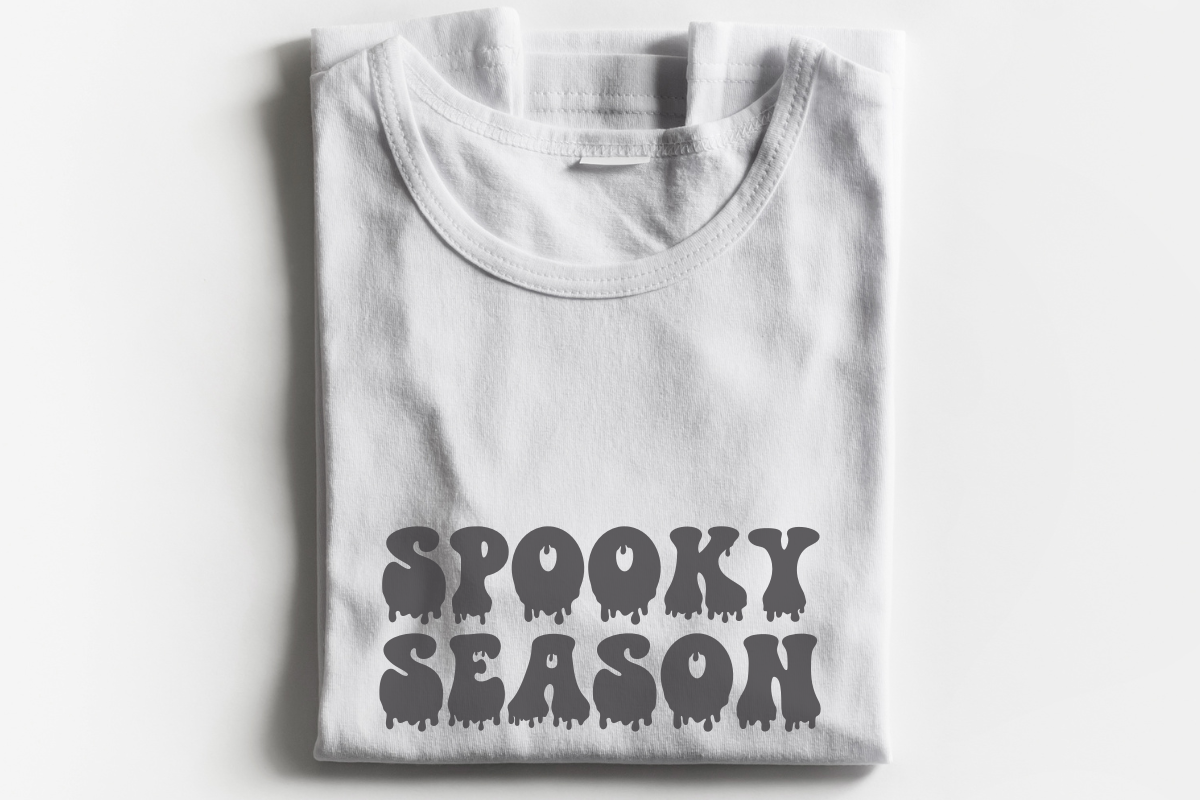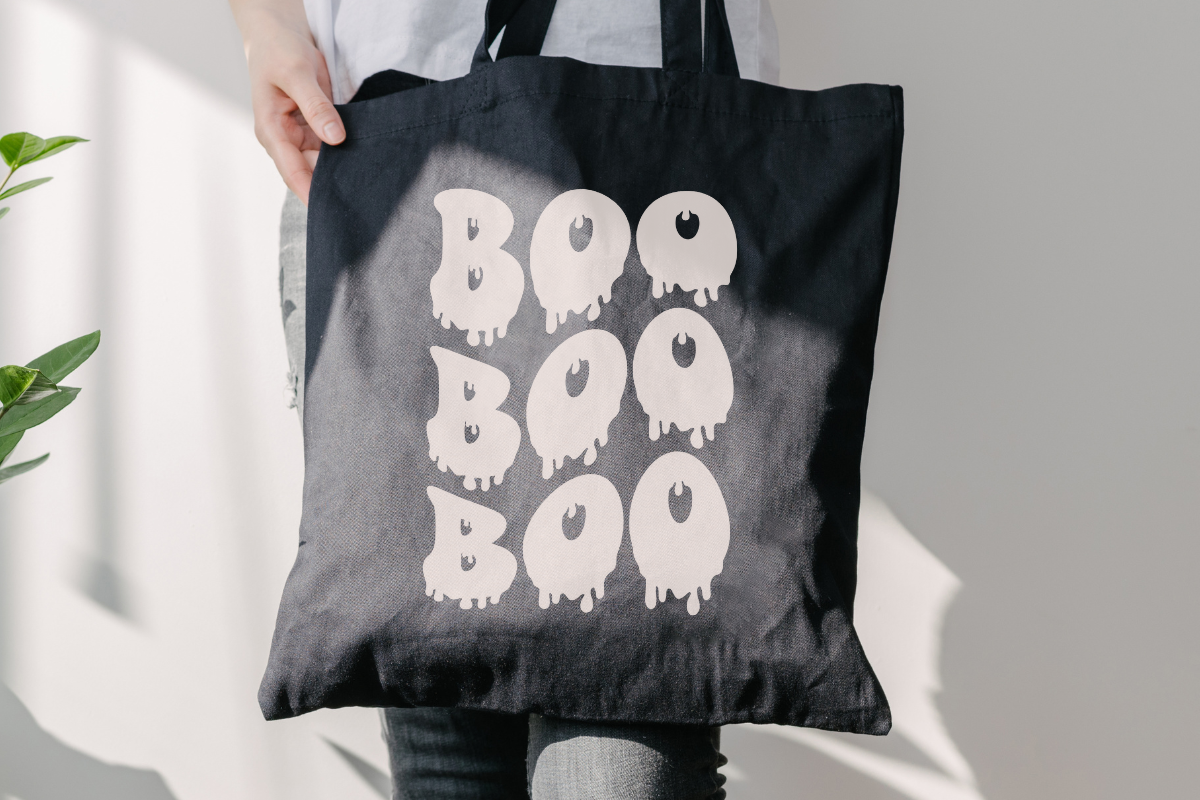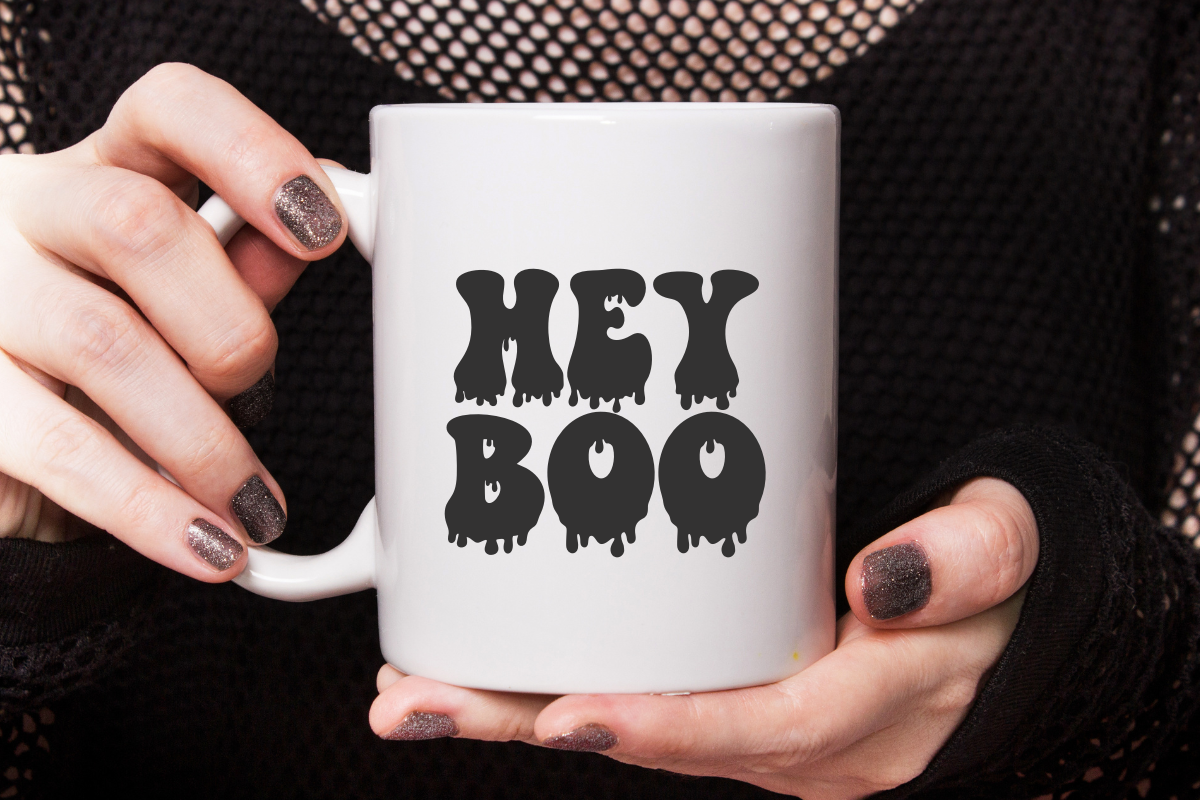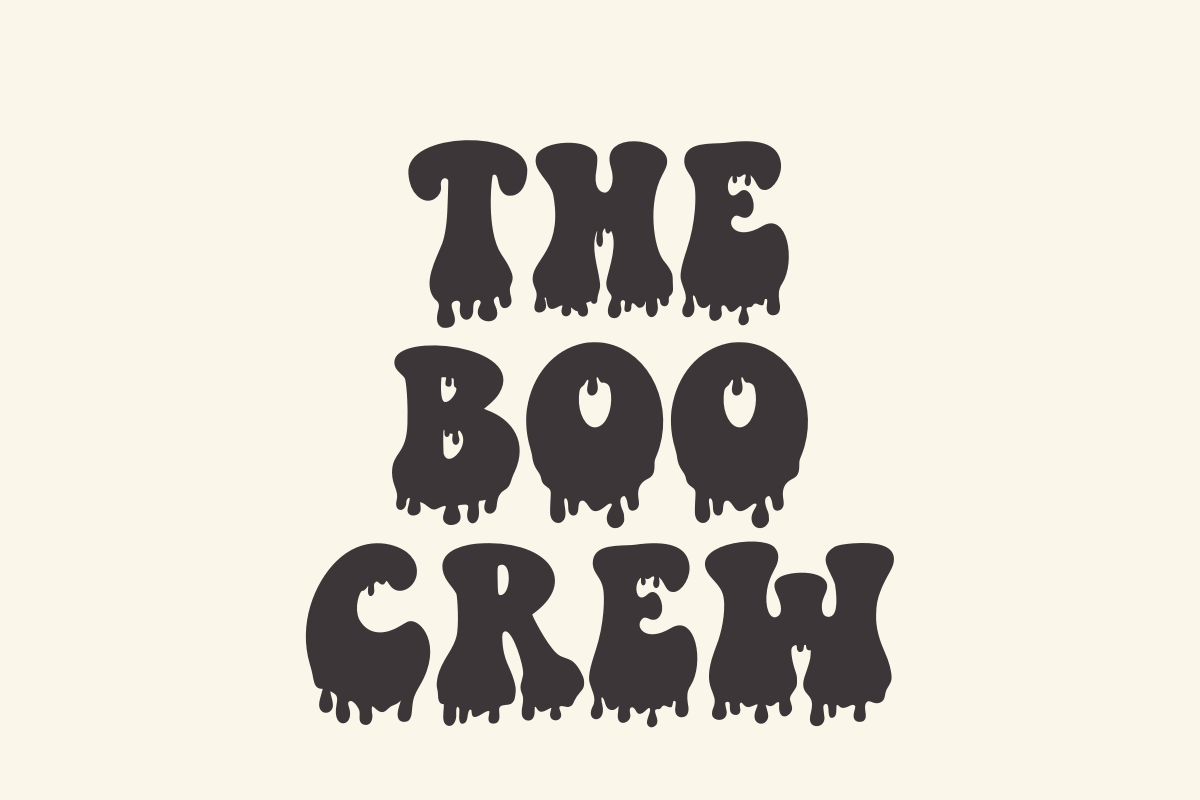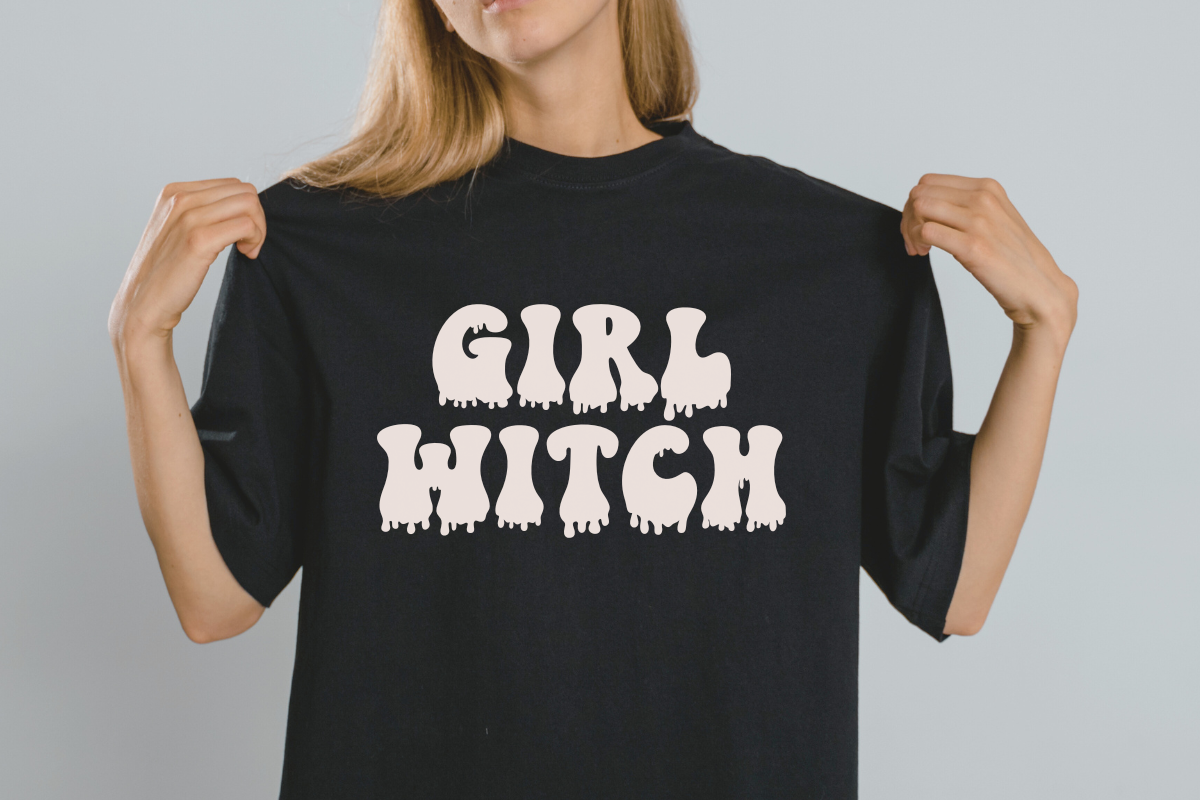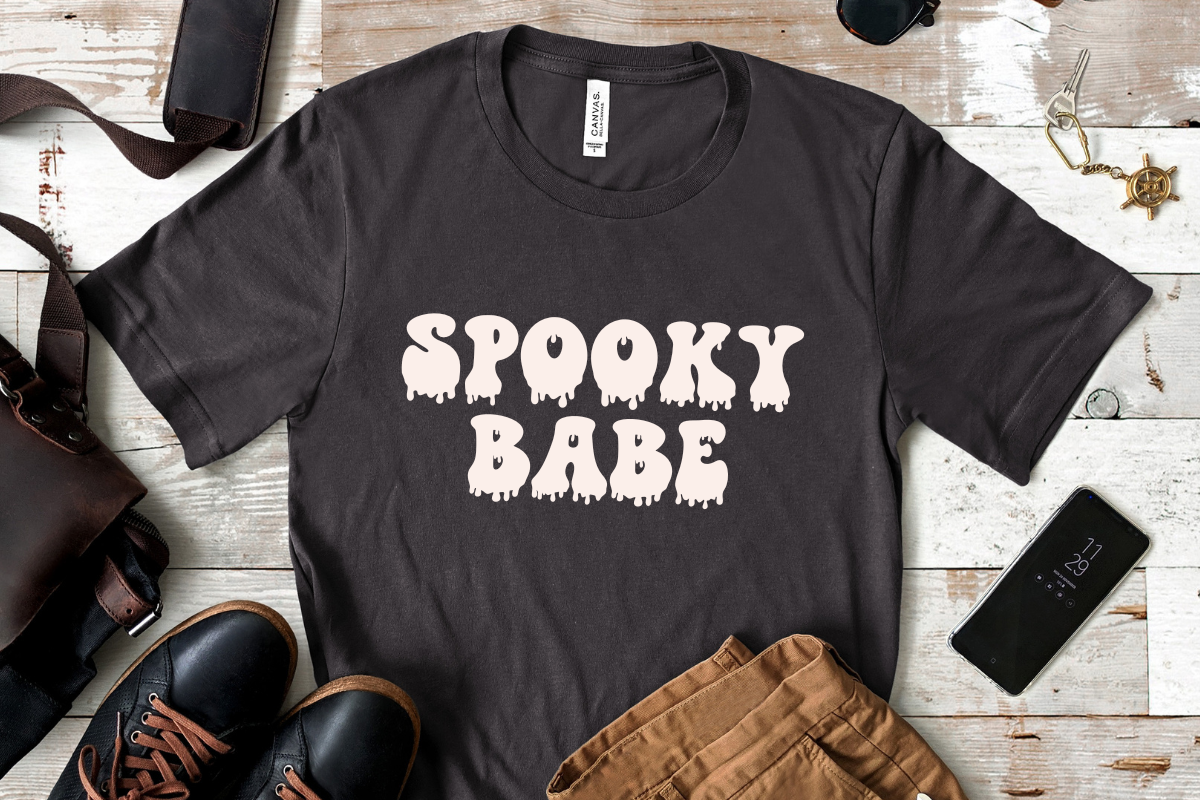
Drips Blood
Drips Blood, a hauntingly retro display font. This spine-chilling aesthetic makes Drips Blood an ideal choice for an immense variety of projects – from handcrafted creations and quirky t-shirt designs to striking mugs, memorable quotes, and practical tote bags. Its eerie charm extends to posters and invitation cards, making them unforgettable. With Drips Blood, your branding will not just stand out, it will be engraved in the minds of your audience. Venture into the uncanny beauty of our dark side and let Drips Blood redefine your creative journey.